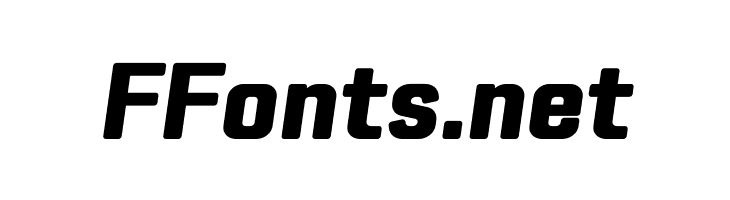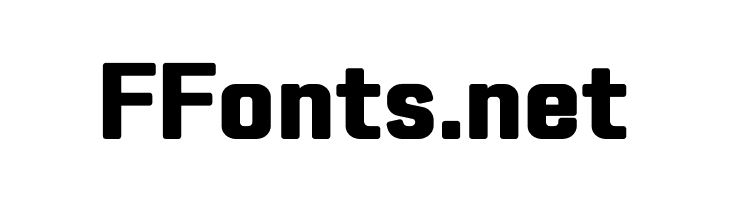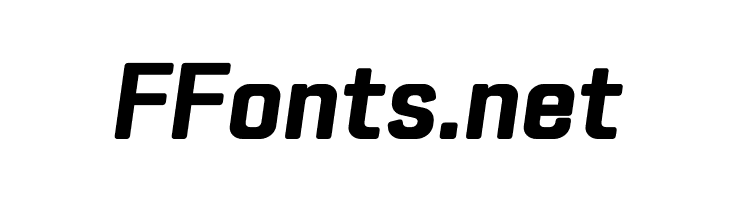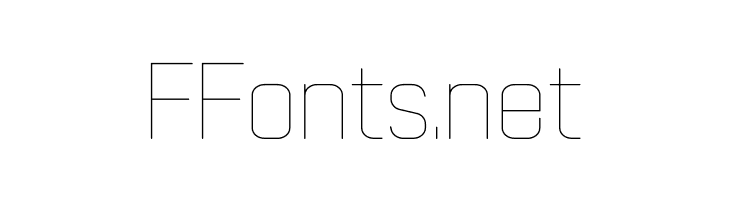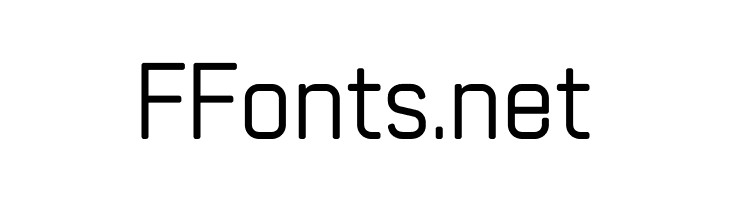
A modern, geometric sans-serif font with bold uppercase and harmonious lowercase letters.
( ZF2334 After a Rain is a display, geometric and condensed sans-serif font. It comes with a monoline width except for some connecting strokes. This font comes in a single style and includes a multilangual character set. License : Zed Fonts 2334 dedicates )
A modern, elegant font with balanced characters and clear readability.
A bold, geometric font with a modern, squarish design.
A modern, geometric typeface with a squarish, minimalistic design.
A modern, italicized font with a sleek and geometric design.
A modern, artistic font with geometric and abstract elements.
A modern, geometric font with rounded edges and a bold, cohesive appearance.
A bold, geometric font with a modern and professional look.